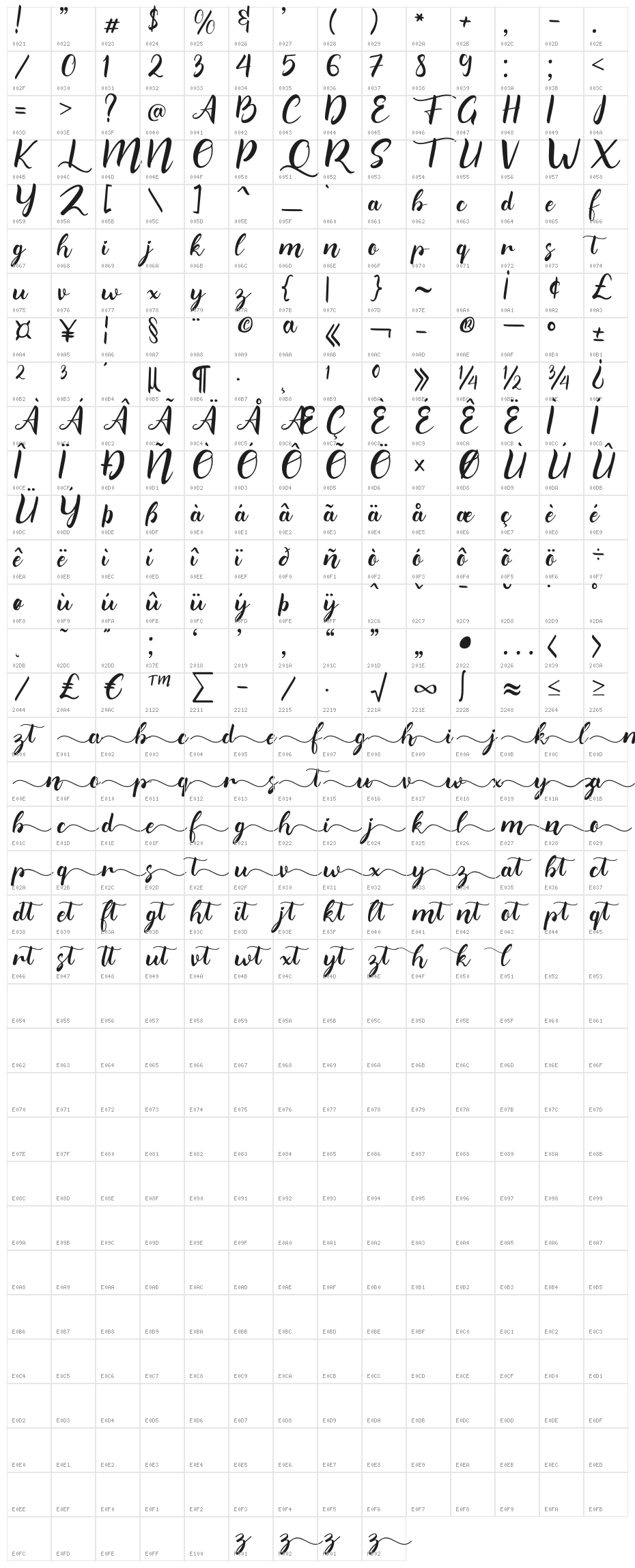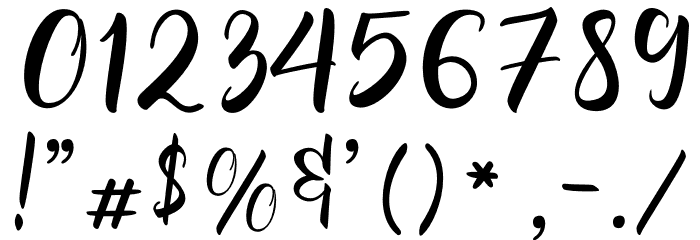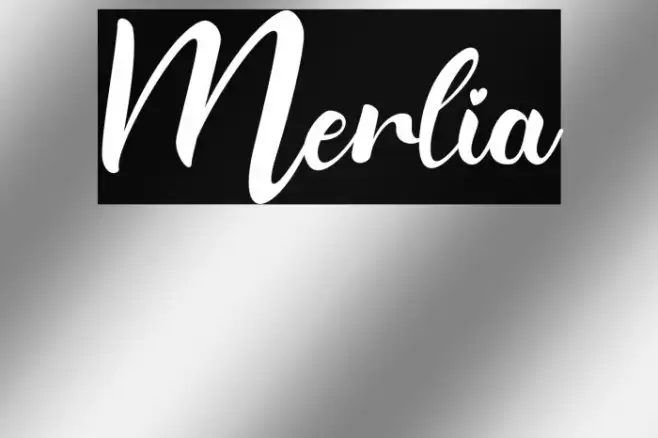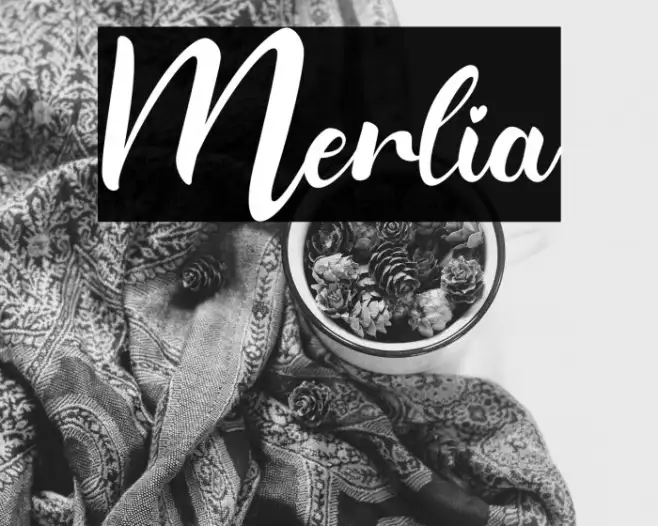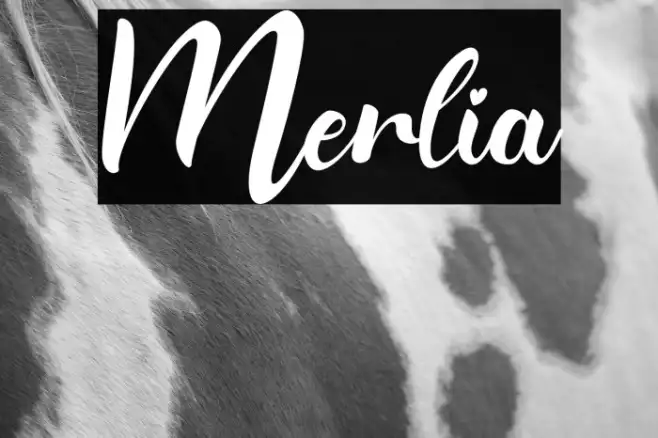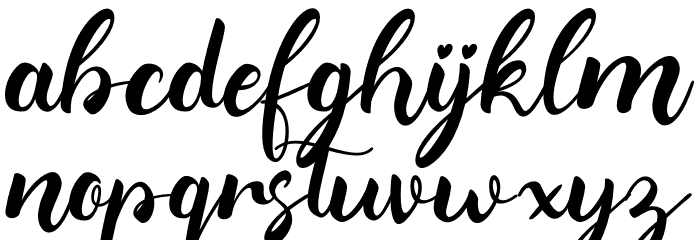
Merlia Font
Merlia Description
This font features a lively and flowing script style, characterized by its elegant and fluid strokes. The uppercase letters are bold and expressive, with a slight slant that adds a dynamic feel. The lowercase letters maintain a consistent rhythm, enhancing readability while retaining a sense of movement. The numerals are well-integrated, matching the overall aesthetic with their smooth curves. Special characters are thoughtfully designed, complementing the alphabet with their harmonious shapes. This font exudes a sense of sophistication and creativity, making it suitable for a variety of design applications.